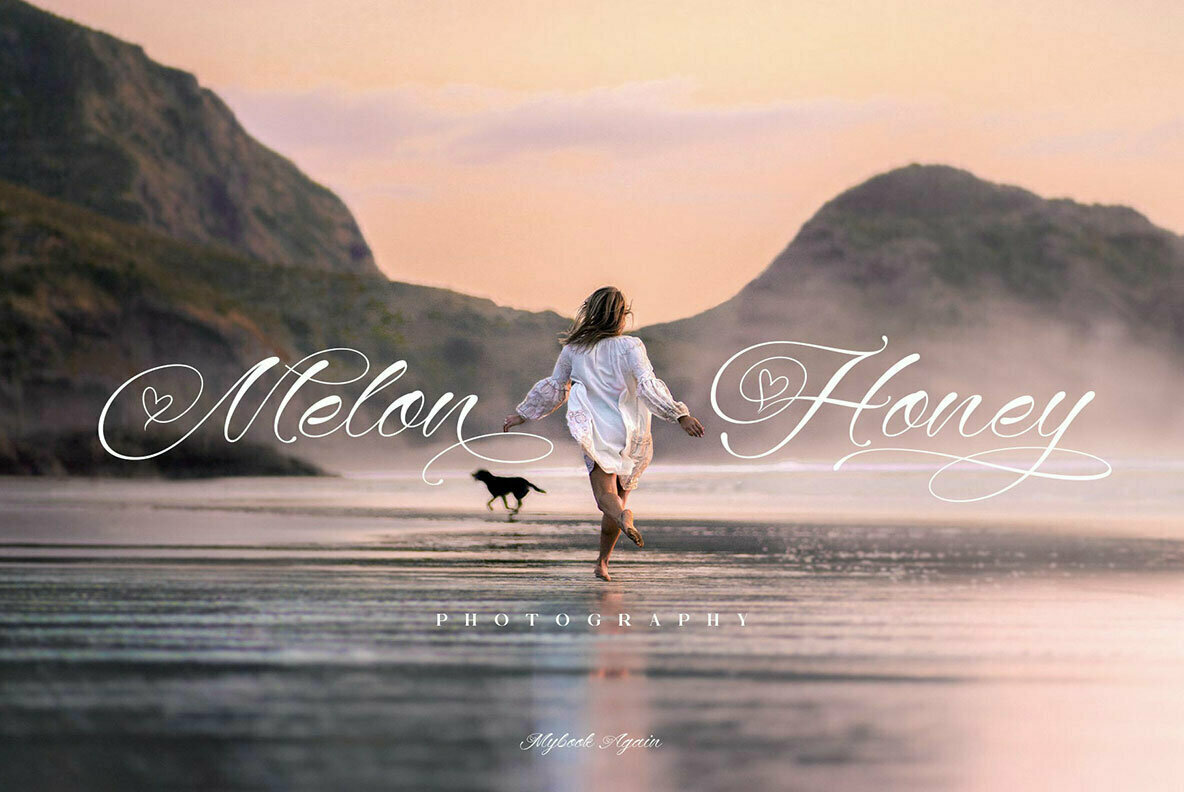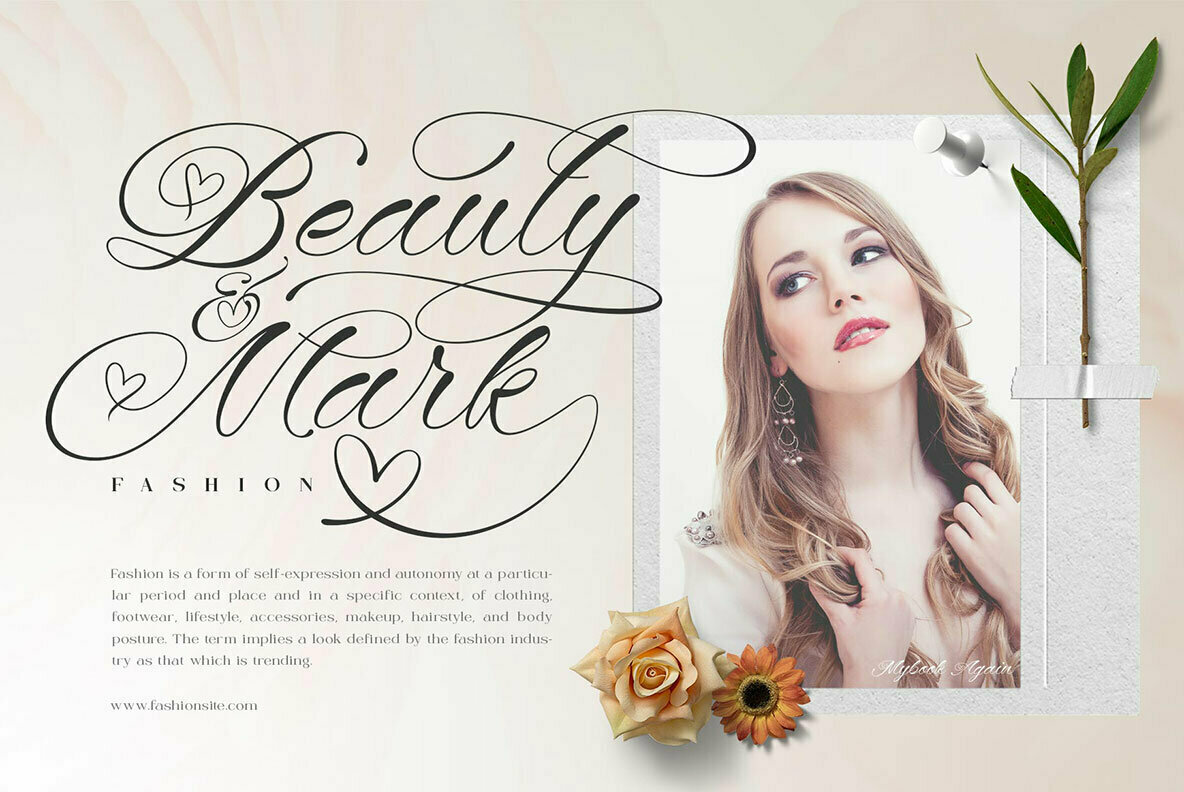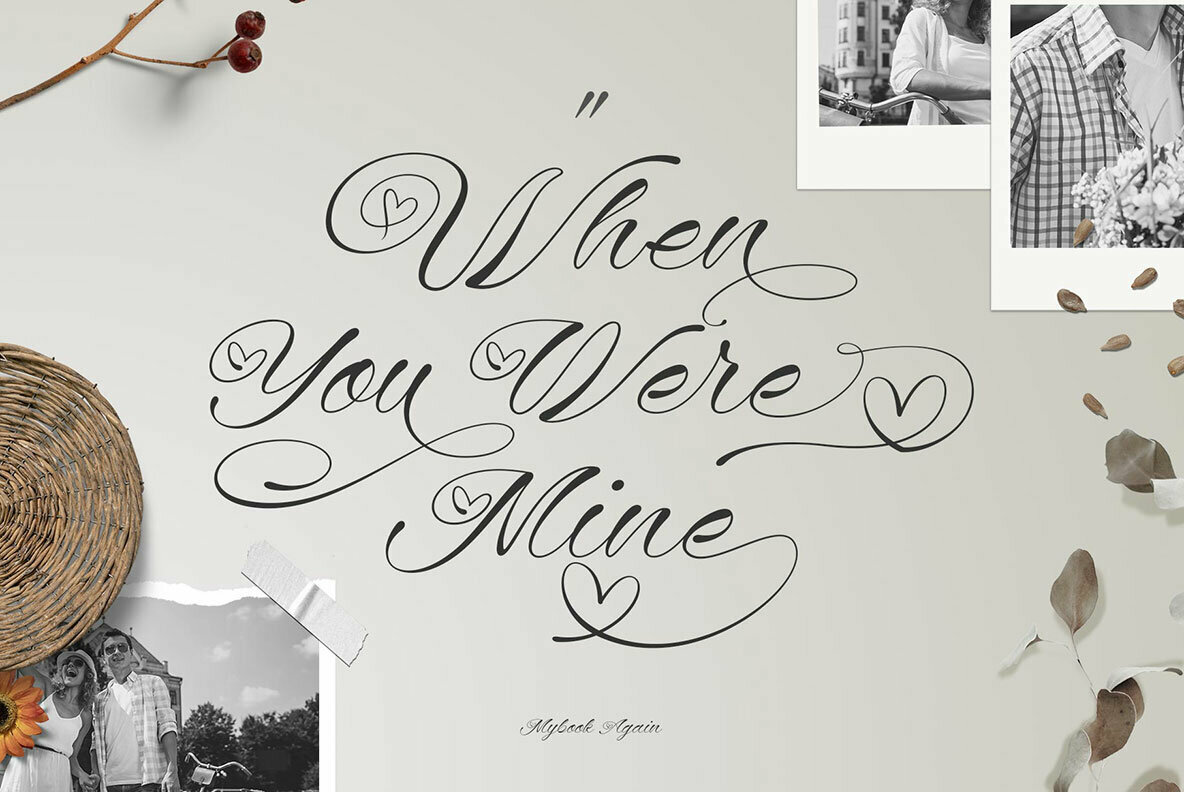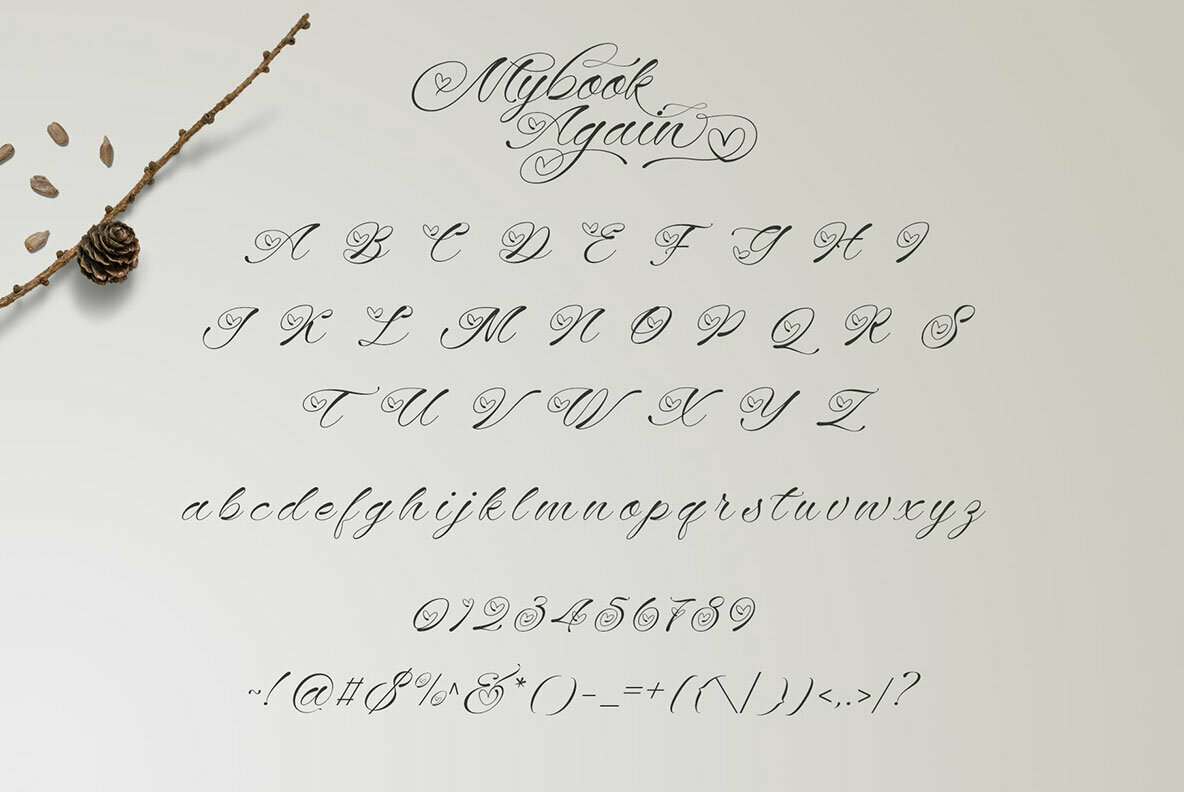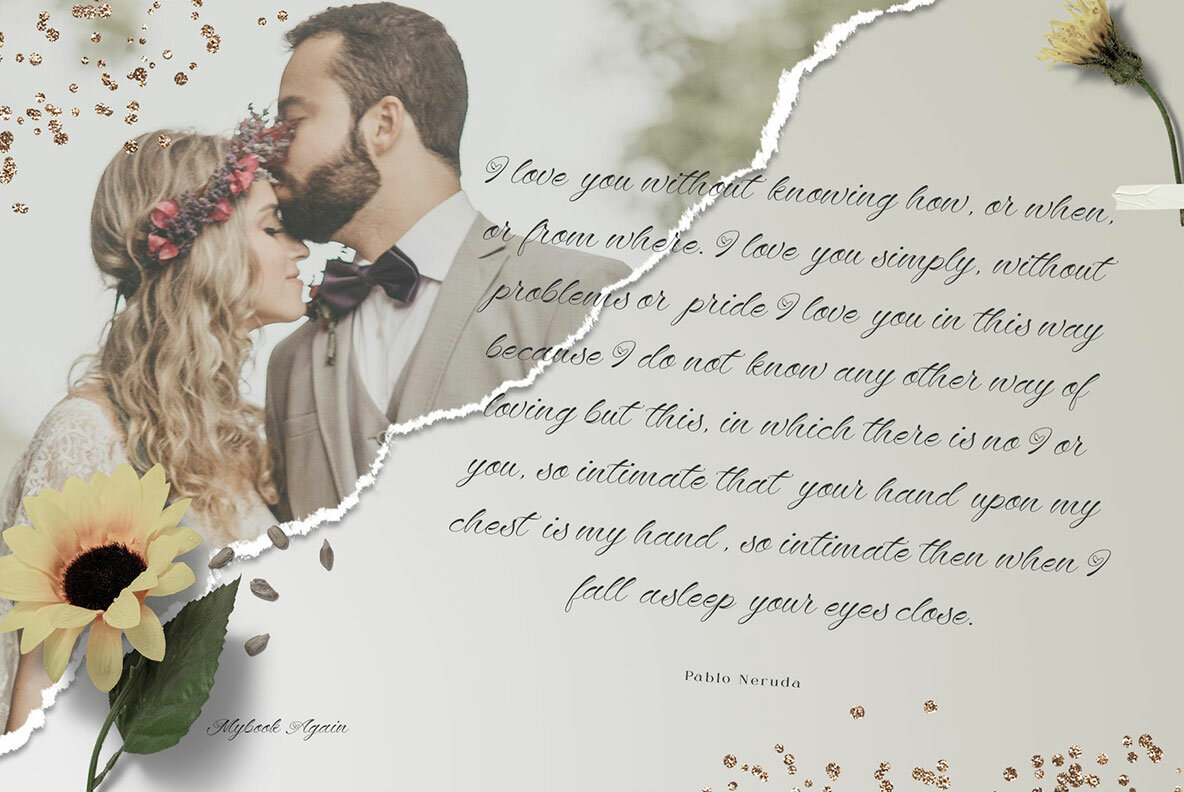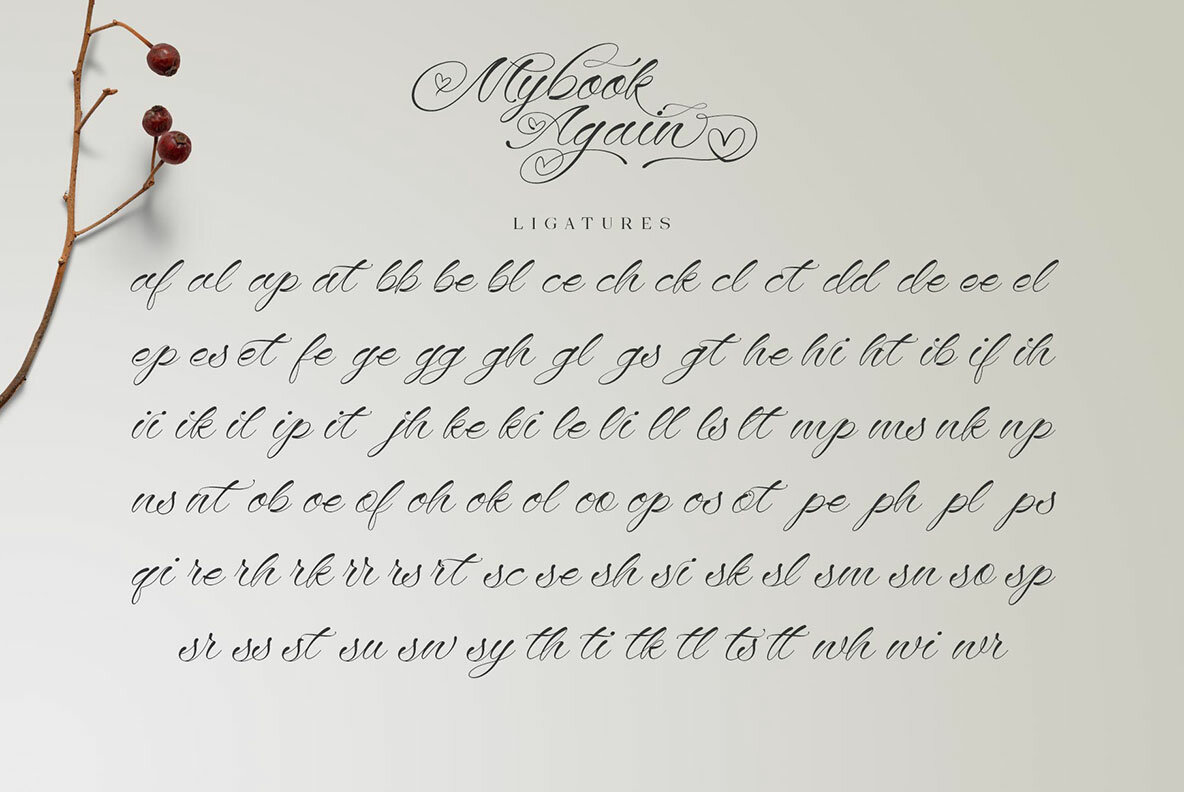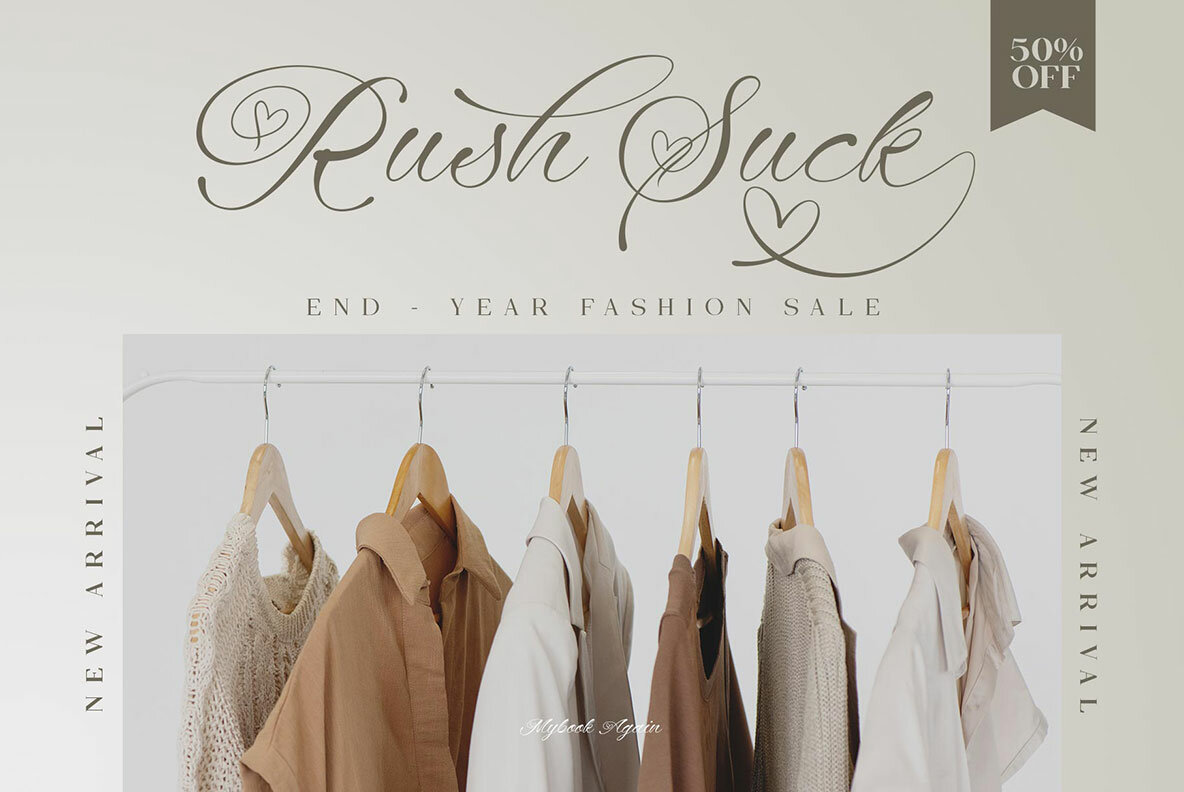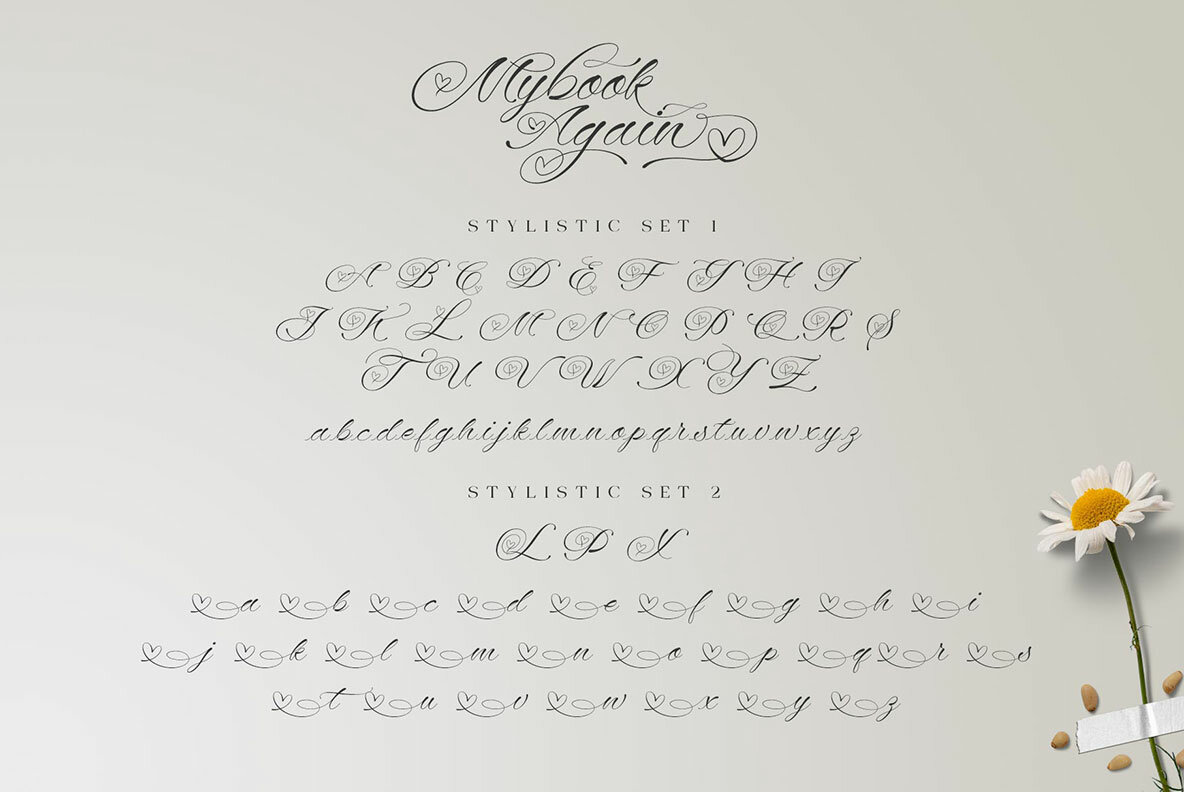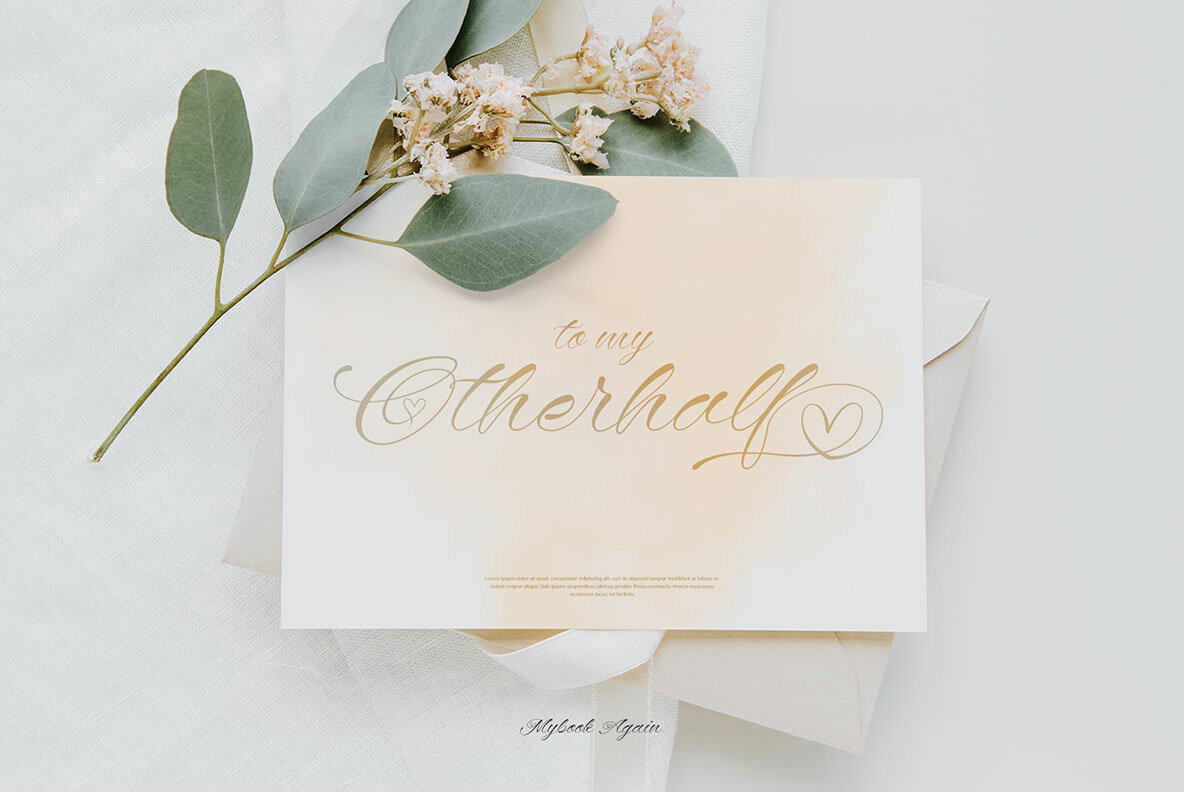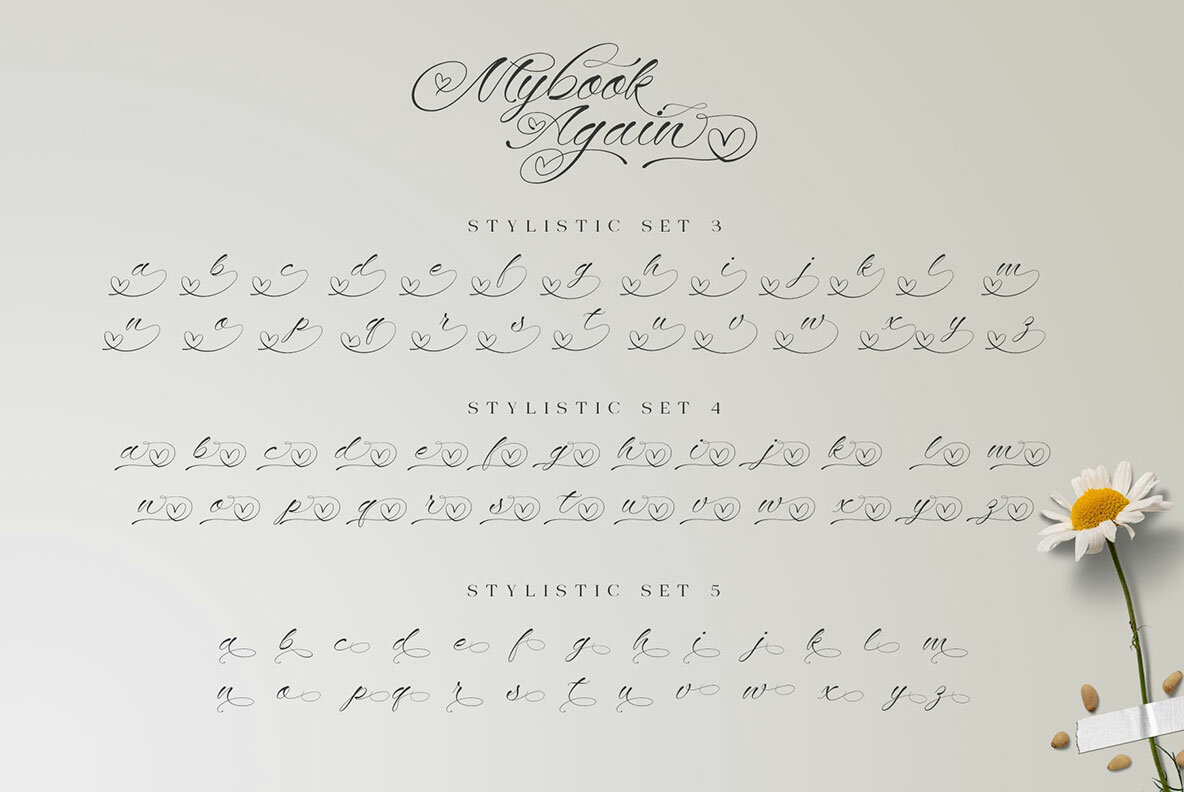
Mybook Again Font
Mybook Again Regular
Embrace the spirit of love with Mybook Again by Alit Suarnegara, a script font designed to capture the essence of romance. Influenced by Valentine's Day, this font features a modern script style with simple elegance. It includes a distinctive swash shaped like a heart, perfect for infusing a touch of affection into your designs. Mybook Again is an ideal choice for crafting greeting cards, enhancing Instagram posts, creating memorable logos, and composing heartfelt wedding texts or romantic quotes. Its versatile style makes it particularly suited for themes of love and connection. Features:Mybook Again: A Romantic Script for Valentine's Creations